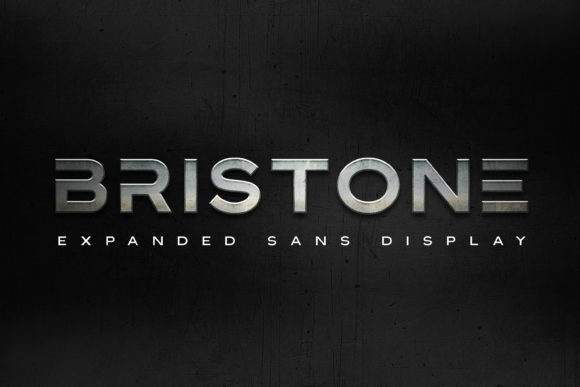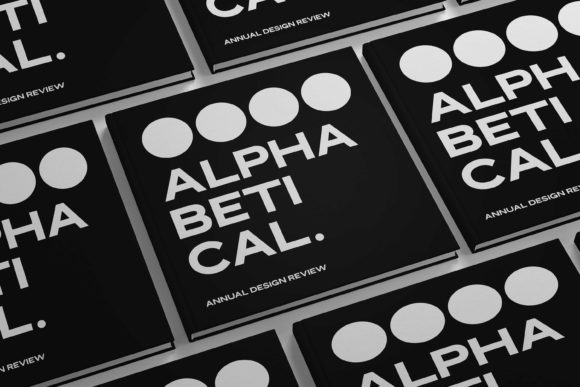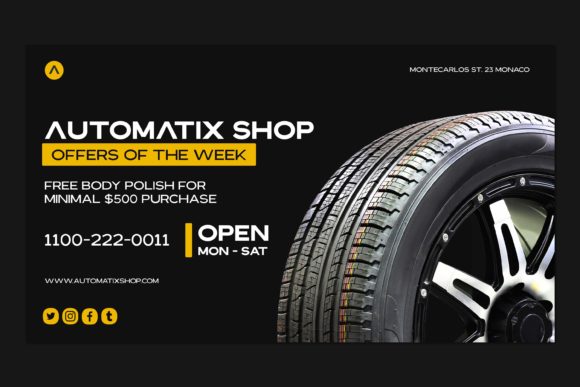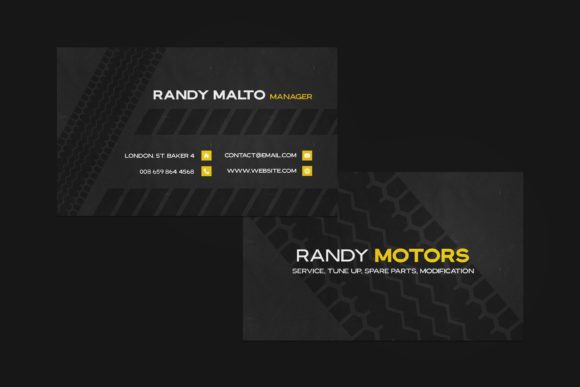
Bristone Font: Bold & Modern Sans Serif for Logo Design
About the Bristone Font
Unleash your creativity with Bristone Font, a versatile font perfect for a wide range of applications. Bristone is a great sans serif font. It features a powerful style that will take your designs to the next level! It comes packed in 6 styles that you can combine to create outstanding designs!
Bristone’s bold, geometric structure makes it ideal for headlines, logos, and short, impactful text on posters or branding materials. Its strong presence, however, makes it less suitable for body text or UI elements requiring high readability in extended passages.
Consider pairing Bristone with a clean sans-serif like Lato for a modern feel, or a classic serif like Garamond for a sophisticated contrast. For a more playful approach, a handwritten script font could complement its structured forms.
The overall personality is assertive and modern, lending itself to brands projecting confidence and innovation. Avoid using it where a softer or more delicate aesthetic is required.
Bristone Font Usage Examples
Bristone Font Example